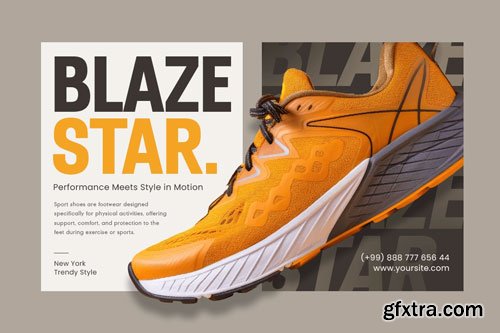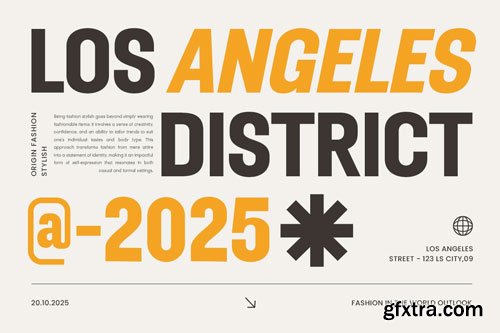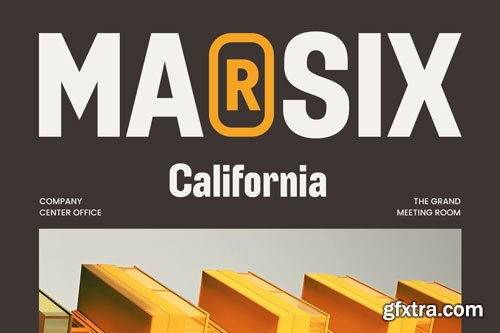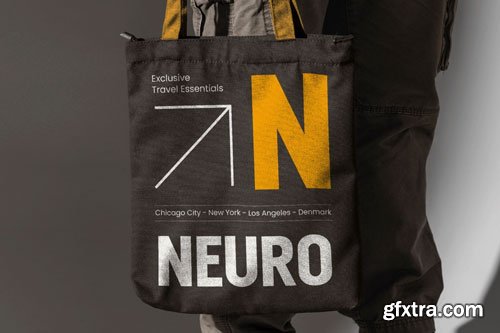
Magola - Modern Condensed Font
Magola font is a modern condensed font that blends bold aesthetics with a sleek, minimalistic touch. Designed for impactful headlines, branding, and editorial layouts, this typeface delivers strong readability while maintaining a stylish and contemporary feel. With its narrow letterforms and balanced proportions, Magola font is ideal for fashion, luxury branding, posters, packaging, and digital content. Its clean lines and sophisticated structure create a refined look, making it perfect for high-end designs and professional typography. Whether used in uppercase for a commanding presence or in mixed case for a more dynamic feel, Magola font adapts beautifully to various design needs.